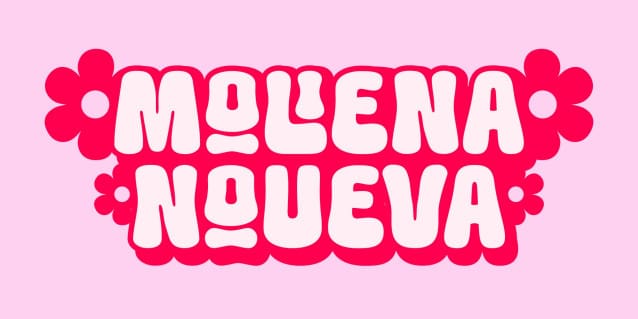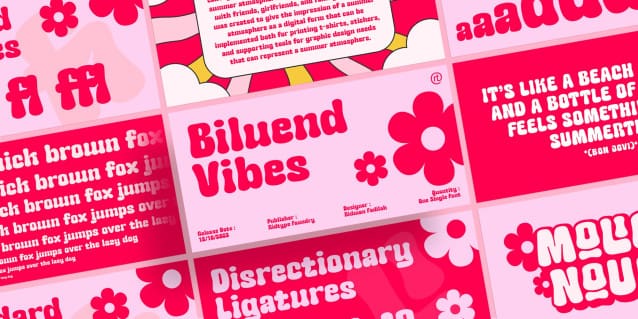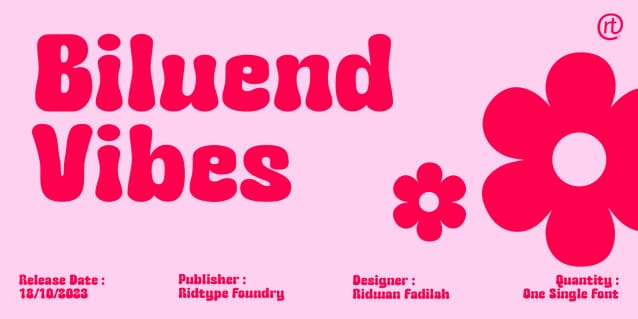
BiIuend Vibes Font
BiIuend Vibes Font, this font is inspired by summer nuances that convey the long-awaited vacation of enjoying the summer atmosphere outdoors and spending time with friends, girlfriends, and family.
This font was created to give the impression of a summer atmosphere as a digital form that can be implemented both for printing t-shirts, stickers, and supporting tools for graphic design needs that can represent a summer atmosphere.